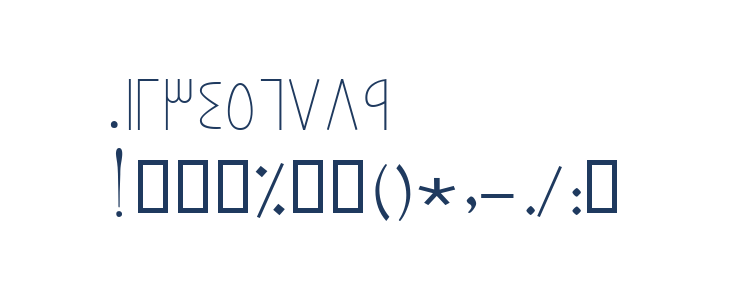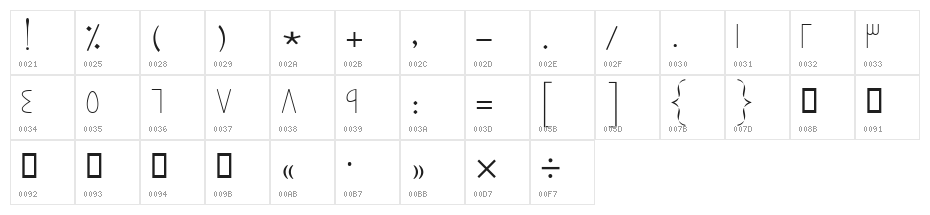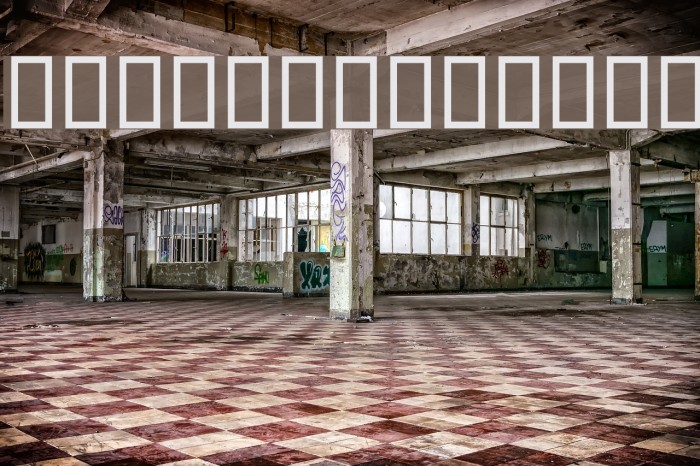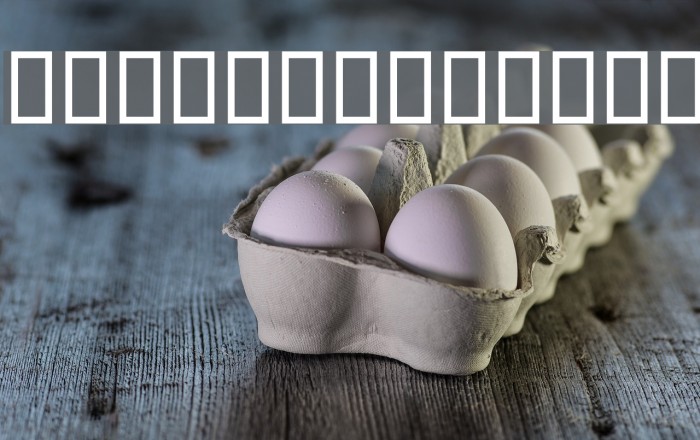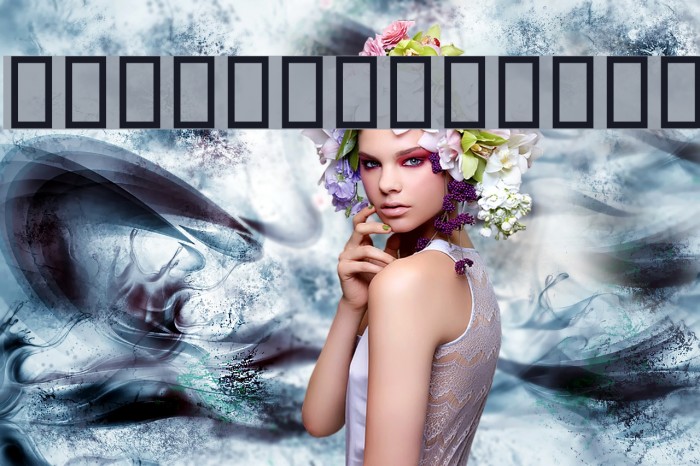
Noqhta Font
Noqhta Description
This font features a modern and minimalist design with clean lines and a geometric structure. The characters are evenly spaced, providing a balanced and harmonious appearance. The uppercase letters are bold and prominent, while the lowercase letters maintain a consistent style, offering a cohesive look across different text sizes. The numerals are clear and easy to read, making them suitable for various applications. Special characters are distinct and well-integrated into the overall design, enhancing the font's versatility. The simplicity and clarity of this font make it ideal for contemporary design projects.
گالری فانت فارسی پژوهش آريانا - only compatible with Farsi and Arabic
| Use Case | Headlines, Body text, Logos |
| Proposed Projects | Ideal for branding, digital interfaces, modern print media, and minimalist design projects. |